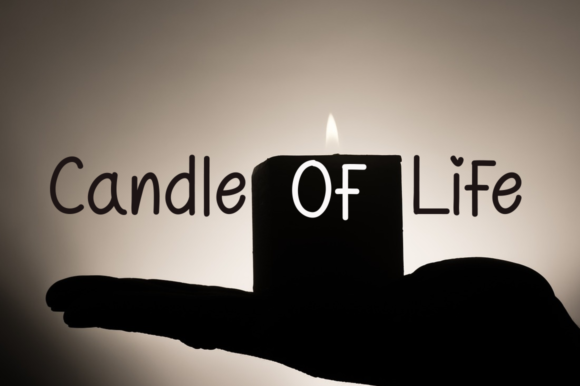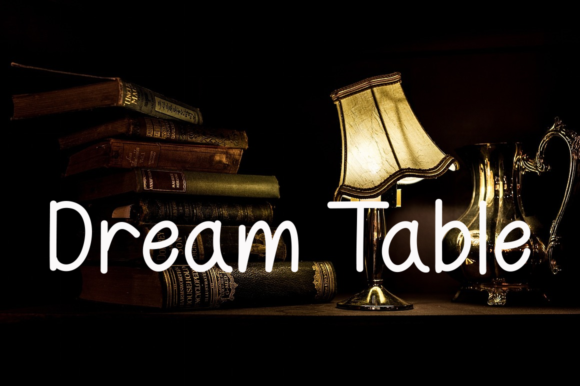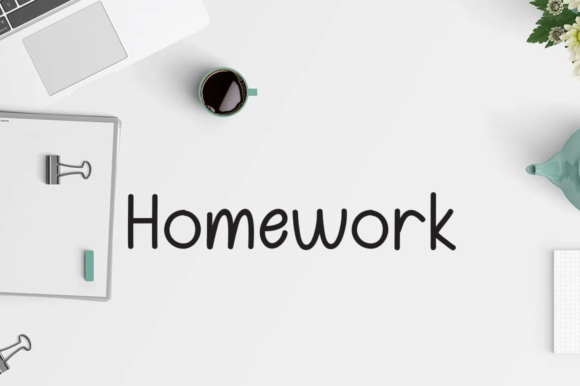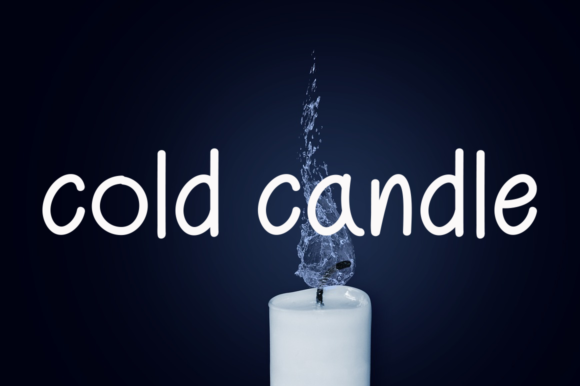
Easter Sheep Font: A Sweet and Friendly Handwritten Delight
Are you looking for a font that can add a touch of warmth and personality to your designs? Look no further than the Easter Sheep Font! This sweet and friendly handwritten font is perfect for a wide range of projects, from Easter-themed crafts to everyday designs that need a personal touch.
What Makes Easter Sheep Font So Special?
Easter Sheep Font is a unique and natural-looking handwritten font that stands out from the crowd. Its distinctive style makes it incredibly fitting for a large pool of designs, from playful Easter crafts to more serious projects like branding and packaging. The font’s friendly and approachable vibe makes it perfect for designers and crafters who want to add a human touch to their work.
Endless Variations at Your Fingertips
One of the best things about Easter Sheep Font is its incredible versatility. With this font, you can create a wide range of designs, from simple and elegant to complex and playful. Whether you’re making Easter cards, decorations, or other crafts, Easter Sheep Font is the perfect choice. You can use it to add a personal touch to your projects, or as a bold statement piece to grab attention.
Easter Sheep Font is a dream come true for designers and crafters who love to work with handwritten fonts. Its natural and unique style makes it perfect for a wide range of projects, including:
- Easter-themed crafts, such as cards, decorations, and gift tags
- Branding and packaging designs that need a personal touch
- Playful and creative projects, such as posters, flyers, and brochures
- Handmade products, such as soap labels, candle labels, and fabric designs
Tips for Using Easter Sheep Font
- Experiment with different sizes and colors to add visual interest to your designs
- Pair Easter Sheep Font with other fonts to create a unique and eye-catching combination
- Use Easter Sheep Font to add a personal touch to your designs, such as in headings, titles, and captions
- Don’t be afraid to get creative and try out new and unusual design ideas
Why Choose Easter Sheep Font?
So why choose Easter Sheep Font over other handwritten fonts? Here are just a few reasons:
- Its unique and natural style makes it stand out from the crowd
- Its friendly and approachable vibe makes it perfect for a wide range of designs
- Its incredible versatility makes it perfect for designers and crafters who like to experiment
- Its high-quality design ensures that it will look great in any design